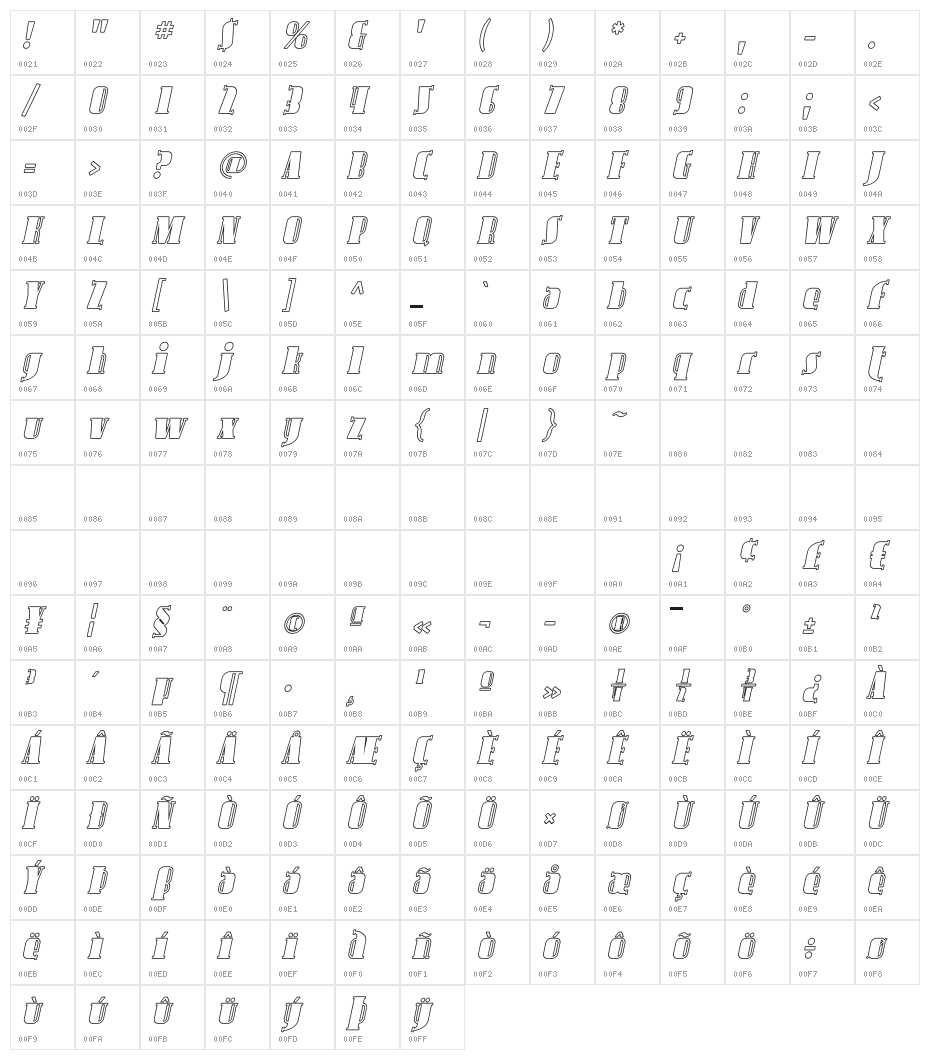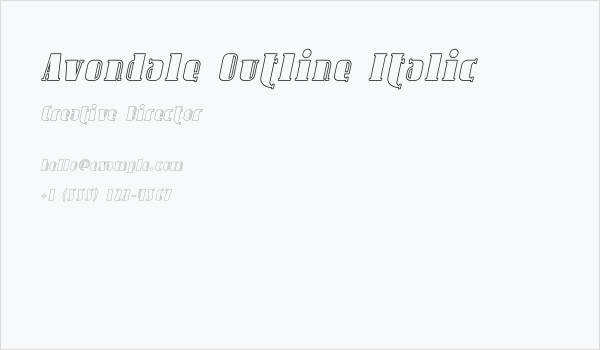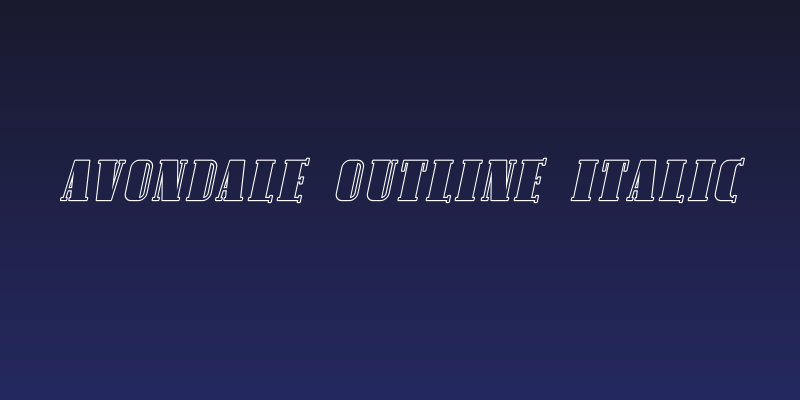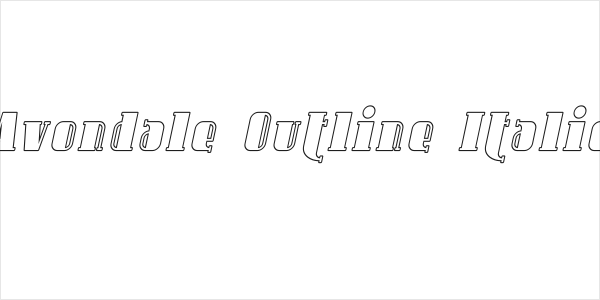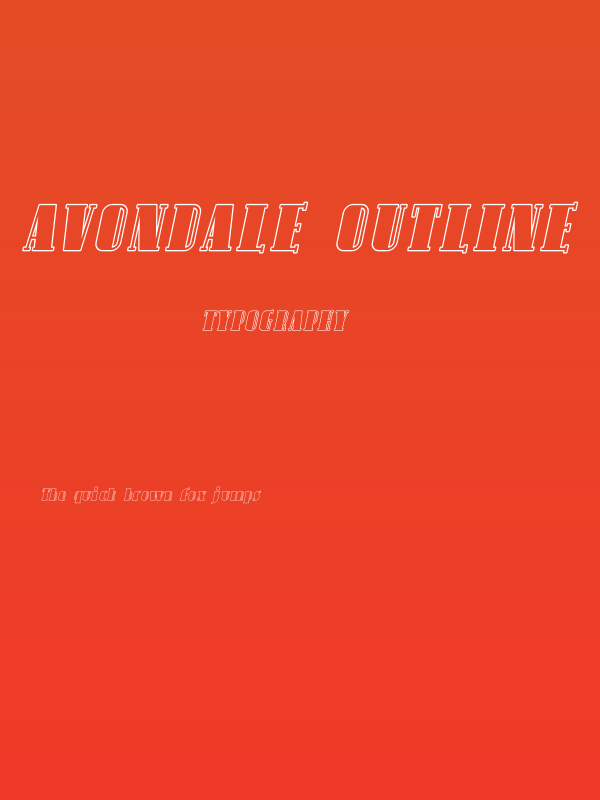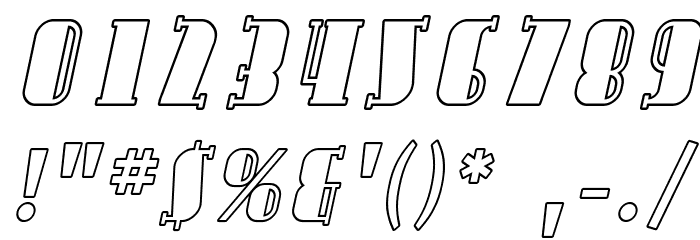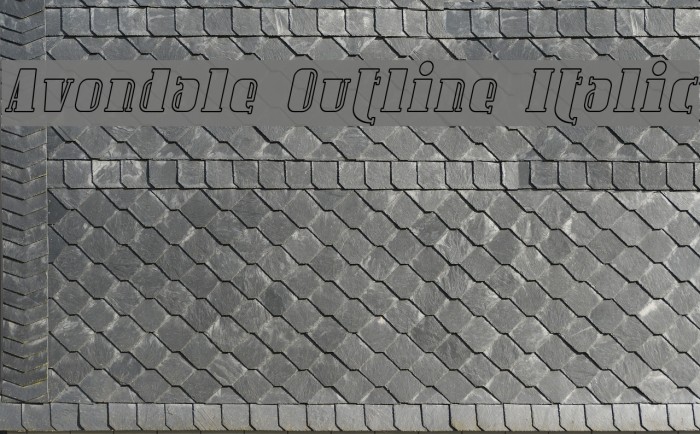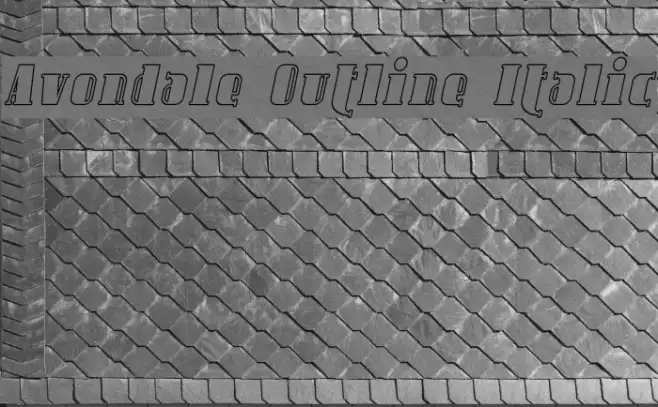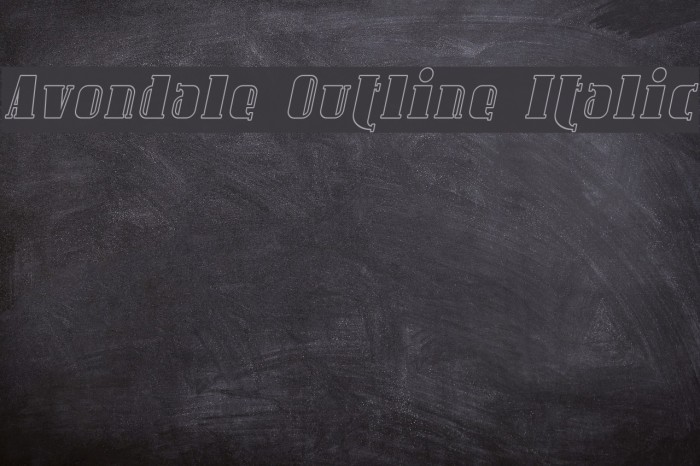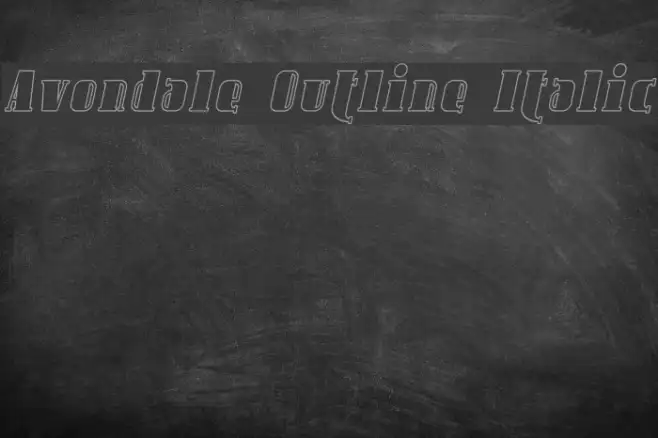
Avondale Outline Italic Font
Avondale Outline Italic Description
This font features an elegant outline style with a distinct italic slant, giving it a dynamic and sophisticated appearance. The uppercase and lowercase letters are designed with a consistent stroke width, creating a harmonious look. The numerals and special characters maintain the same outline effect, ensuring uniformity across all glyphs. The font's design is both modern and classic, making it versatile for various applications. Its unique outline style adds a layer of depth and interest, perfect for eye-catching designs.
| Proposed Projects | Ideal for branding, headlines, posters, and any design requiring a stylish and distinctive typeface. |